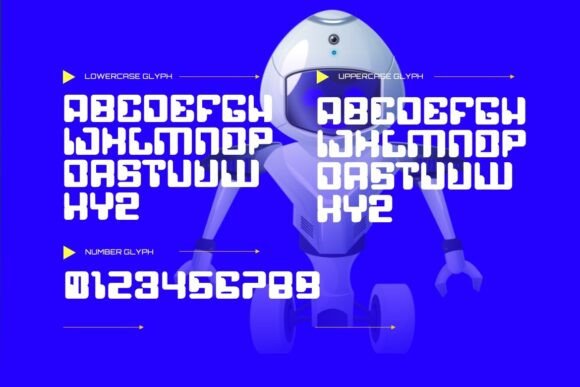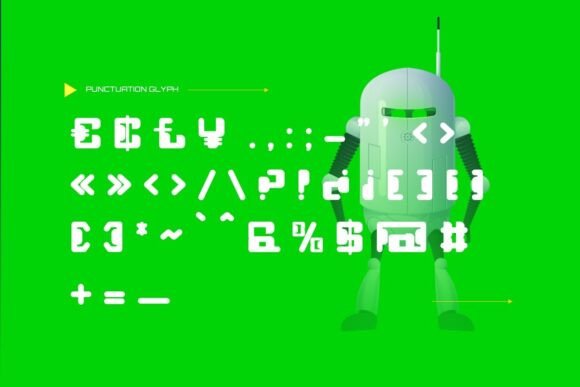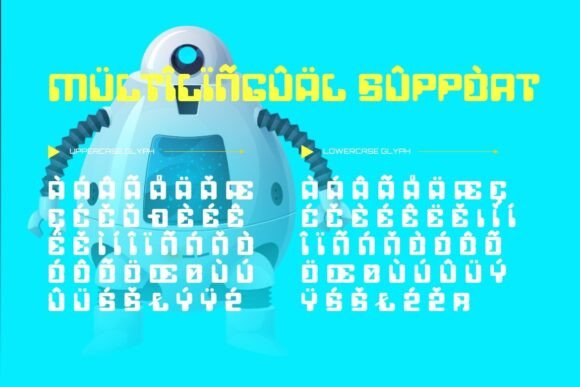
Introduction to Flazie Font
β€œFlazie – Modern Future” is a fresh and catchy song that blends upbeat electronic sounds with smooth melodies.
It’s all about embracing the possibilities of the future, filled with excitement and new adventures The music has a modern, energetic vibe that makes you feel optimistic and ready for what’s next.
Flazie Font offers exceptional quality and versatility, making it a valuable addition to your design toolkit. Whether you’re creating for personal projects or commercial use, Flazie Font delivers professional results.